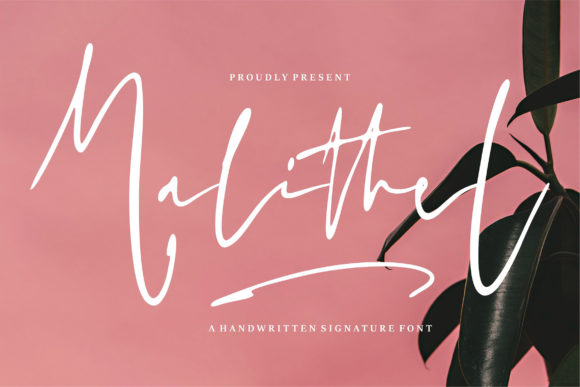
Download Malithel, a captivating script font that will ignite your designs with its enchanting handwritten style. Each character dances with asymmetry, creating a unique and mesmerizing aesthetic. With Malithel, your posters will leap from the ordinary to the extraordinary, leaving an indelible mark on your audience.
Embrace the freedom of PUA encoding, which grants you effortless access to a world of swashes and glyphs. Unleash your creativity and let Malithel weave its magic, transforming your designs into works of art. Experience the allure of Malithel, a font that captures the beauty of handwritten notes and transforms it into a digital masterpiece. Elevate your designs, captivate your audience, and leave a lasting impression with Malithel.